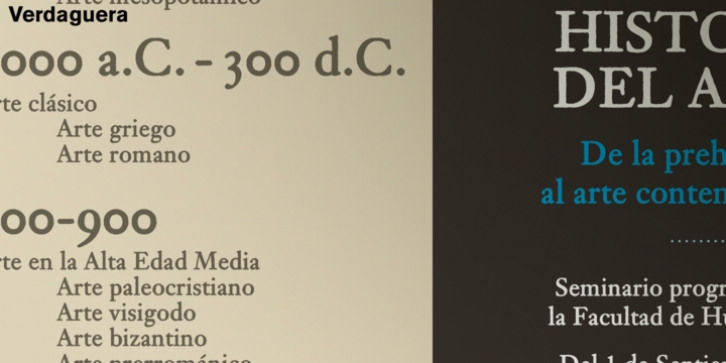
Another rebirth: Verdaguera. The all time Catalan people’s choice. Now with a complete set of characters that covers a wide range of latin alphabet languages. Catalan included, of course.